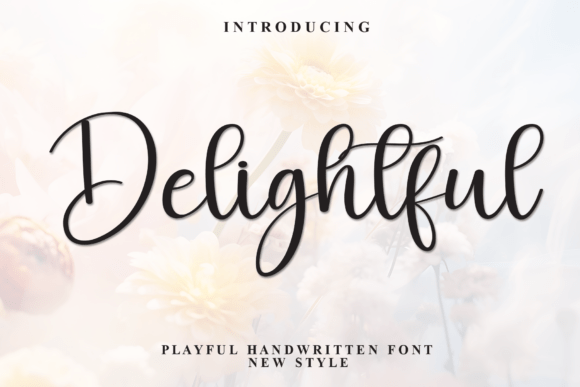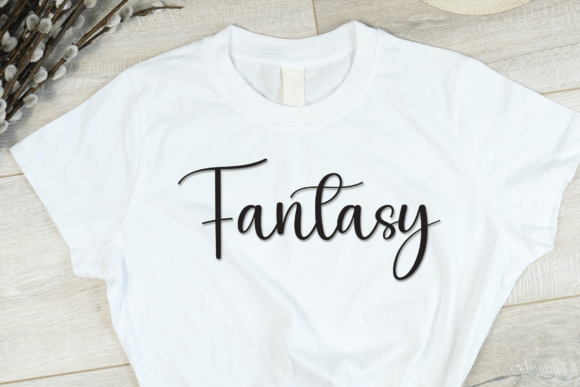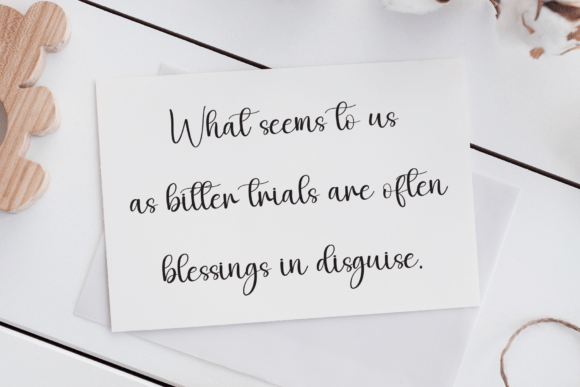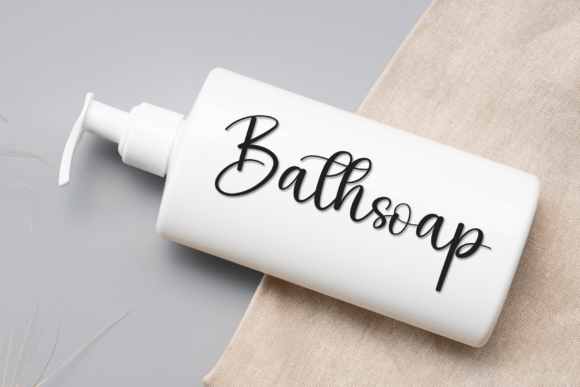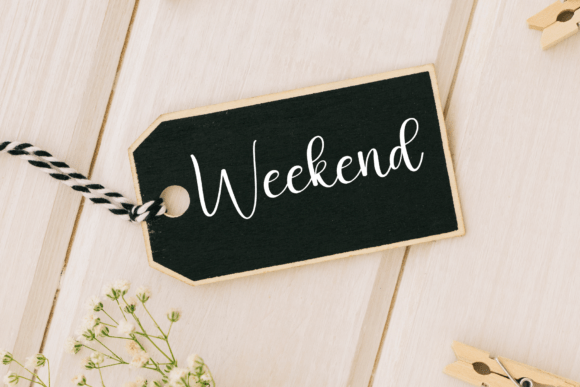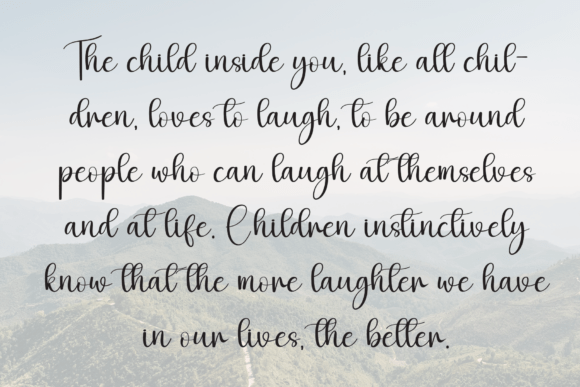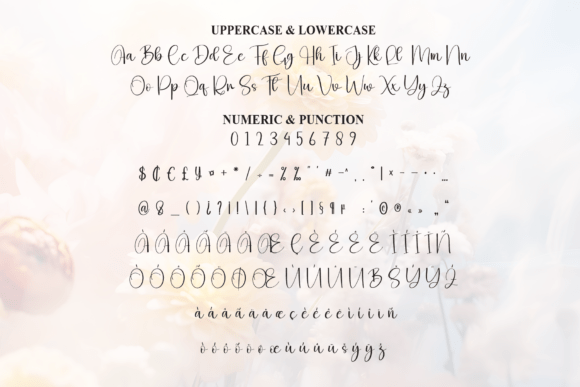
The Perfect Script: Unleashing the Magic of Hand-Painted Calligraphy in the Digital Age
Have you ever sat at your desk, surrounded by blank sheets of paper and a blank mind, waiting for that elusive spark of creativity to strike? For designers, it’s a familiar feeling – the moment when you know you need something special, something that will elevate your design from good to great. And that’s where Delightful Font comes in, a stylish script font that captures the essence of hand-painted calligraphy with a modern twist.
Delightful Font is more than just a font – it’s a tool for designers to add a creative and sophisticated touch to their work. With its fluid brush strokes, dynamic curves, and expressive letterforms, it’s perfect for logos, invitations, packaging, and social media graphics. Whether you’re a seasoned pro or a design newbie, Delightful Font is a valuable addition to your toolkit, offering both visual impact and versatility.
Delightful Font Key Features
- Unique Characteristics: Delightful Font features a unique blend of modern and classic elements, with elegant lines, subtle flourishes, and a touch of sophistication, making it perfect for high-end designs and branding.
- Weight and Style Options: Delightful Font comes in multiple weights (Light, Regular, Bold, and Black) and styles (Italic, Oblique, and Small Caps), allowing designers to choose the perfect combination to suit their needs.
Delightful Font Review
As a designer, I’m always on the lookout for unique and charming fonts to add a touch of personality to my designs. Delightful Font is one such font that caught my attention, and here’s my honest review.
- Delightful Font has a beautiful, whimsical feel to it, making it perfect for designs that need a touch of magic.
- The font’s varying line widths and x-heights give it a charming, handmade feel that’s hard to replicate with other fonts.
- The font is highly legible, even at small sizes, making it suitable for body text and headings.
- The font’s OpenType features allow for a wide range of creative possibilities, from ligatures to swashes.
- The font may not be the best choice for formal or corporate designs, as its whimsical feel may not be suitable for such applications.
Delightful Font is a unique and charming font that’s perfect for designers who want to add a touch of personality to their work. While it may not be the best choice for every project, it’s definitely worth considering for designs that need a little magic.
For the best results, use Delightful Font in conjunction with other visually appealing design elements, such as bold colors and elegant graphics. Experiment with different font sizes and styles to create a unique and eye-catching design.
Delightful Font is ideal for creating elegant invitations, wedding designs, and other formal documents. It’s also suitable for creating visually appealing social media graphics, logos, and branding materials.